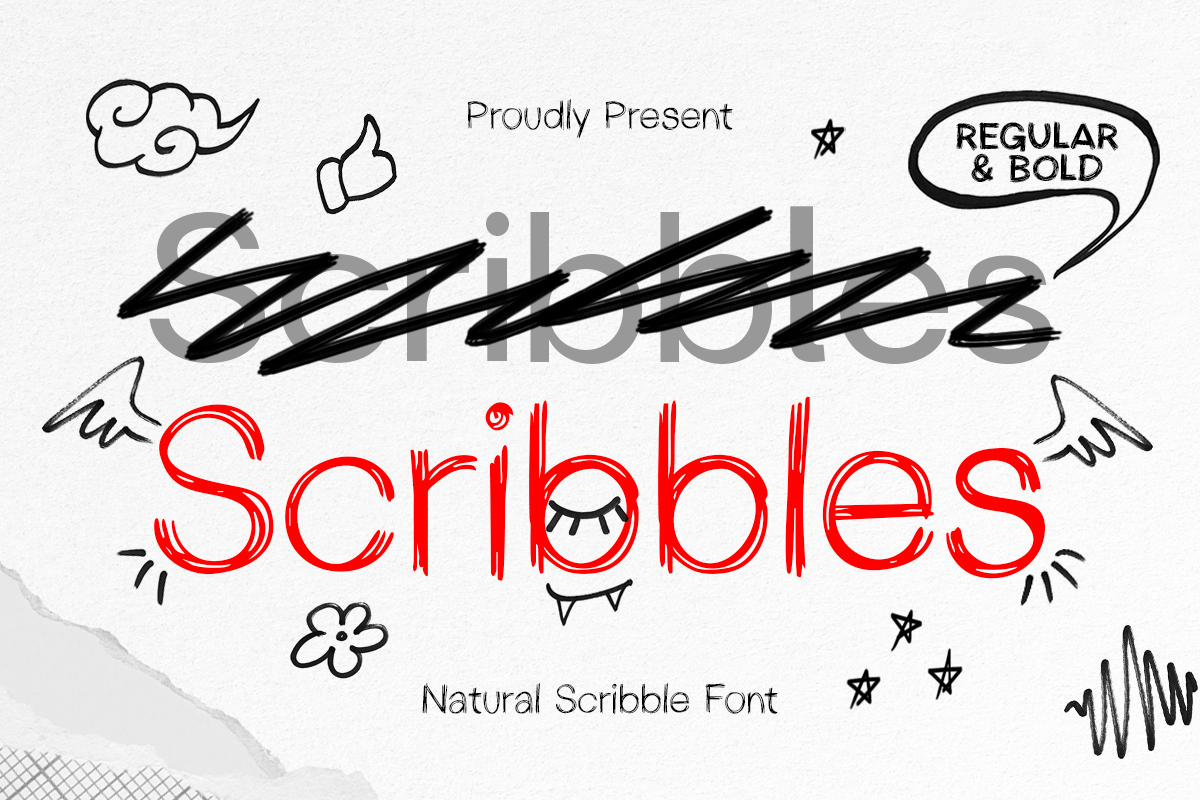
Scribbles
-Natural Scribble Handwritten Font
Scribbles - Natural Scribble Handwritten Font
Scribbles is a natural scribble handwritten font made to feel spontaneous, human, and full of warm personality. Its sketchy strokes and relaxed rhythm capture the charm of real handwriting—perfect for designs that need an authentic, casual touch without losing readability.
Great for notes, journaling, planners, stickers, labels, quotes, and classroom-friendly materials, Scribbles also works beautifully in cute packaging, cozy branding, and social media graphics. Whether used in headlines or short text, it adds a friendly handmade vibe that makes your message feel more personal and approachable.
From stationery projects and printable templates to craft brands and playful promotions, Scribbles brings natural scribble energy that keeps your typography fun, flexible, and memorable across print and digital layouts.
Scribbles – Natural Scribble Handwritten Features
• Natural scribble letterforms with authentic handwritten character
• Available with regular and bold weights, perfect to your projects
• Perfect for notes, journals, planners, and stationery designs
• Great for stickers, labels, quotes, and printable templates
• Friendly style for kids projects and classroom materials
• Clear readability for both digital screens and print output
• OpenType features for smooth creative flexibility